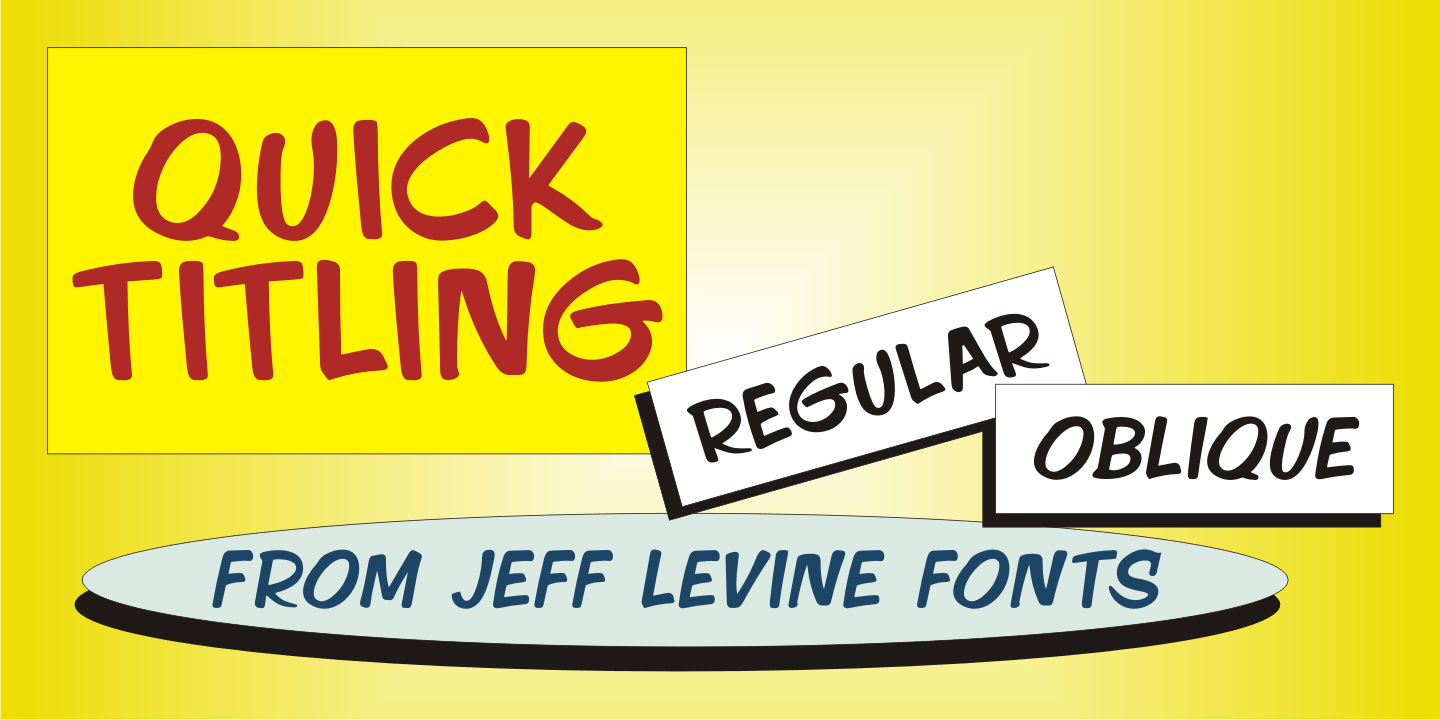
Quick Titling
An ad spotted in a 1960 issue of Billboard magazine promoting a 45 rpm release by Randy Lee doing the old song 'Did You ever See A Dream Walking?' featured the song title in a casual, brush lettered style.
While the ad made a perfect model for a digital font design, the record itself tanked.
Quick Titling JNL is available in both regular and oblique versions.
Quick Titling JNL Regular by Jeff Levine Fonts